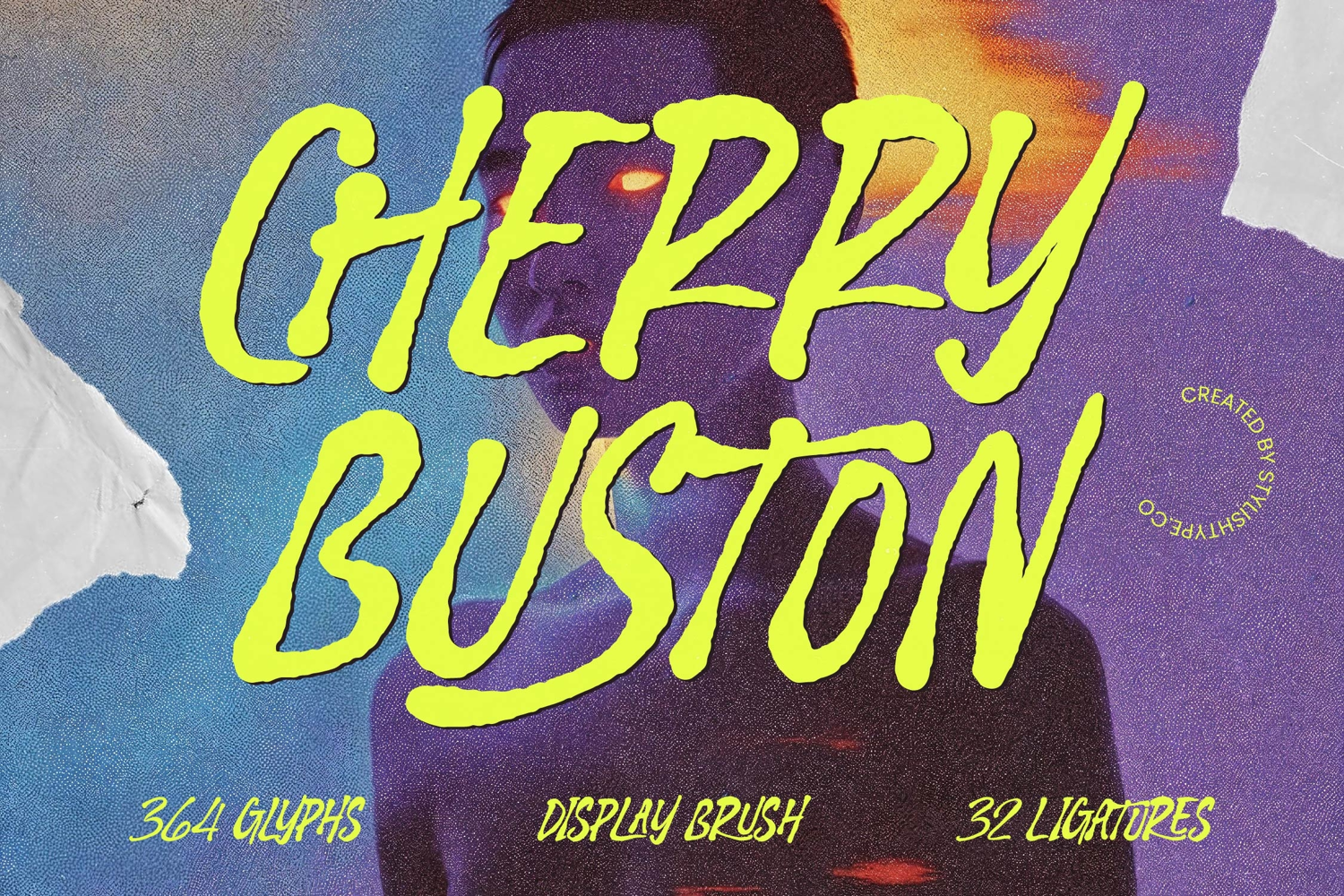
Cherry Buston - Display Brush
Elevate your creative projects with the raw energy of Cherry Buston - Display Brush. This typeface captures a bold, expressive aesthetic that combines hand-drawn authenticity with modern urban flair. Its textured brush strokes and dynamic letterforms provide an immediate visual impact, perfect for designers looking to break away from traditional typography and inject organic movement into their work.
Precision engineering meets artistic chaos in this high-performance typeface. With its extensive multilingual support, Cherry Buston - Display Brush adapts seamlessly across global markets, making it incredibly versatile for international projects. Featuring 364 glyphs and 32 unique ligatures, it ensures a natural flow and professional finish that maintains legibility without sacrificing its distinctive, gritty character.
Unlock limitless design potential across various high-end industries. This typeface is perfect for streetwear branding, music posters, editorial headers, and impactful social media graphics. Whether you are crafting high-energy advertisements or edgy packaging designs, Cherry Buston - Display Brush delivers a commanding presence that demands attention in the competitive digital landscape and provides a premium tactile feel to print media.